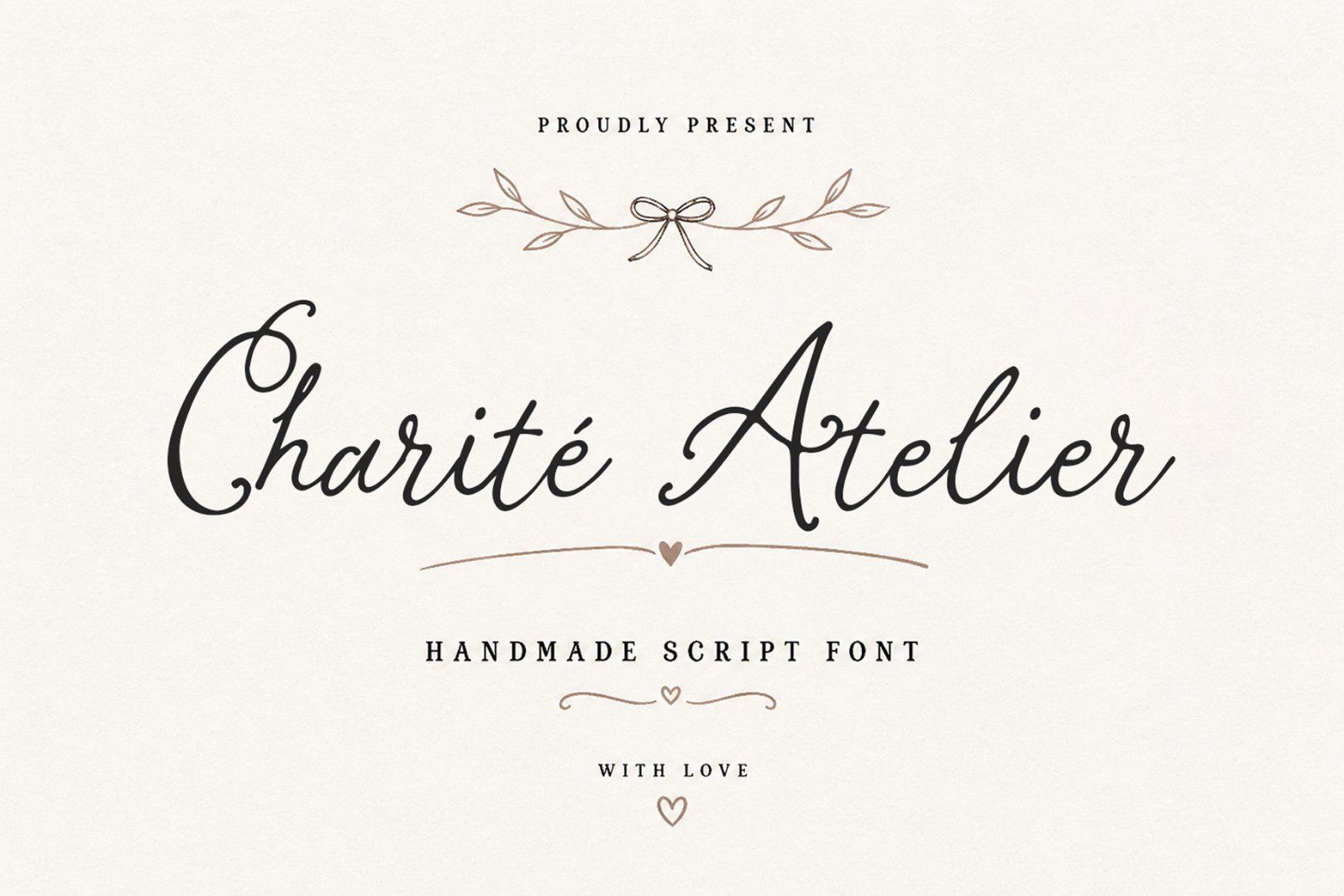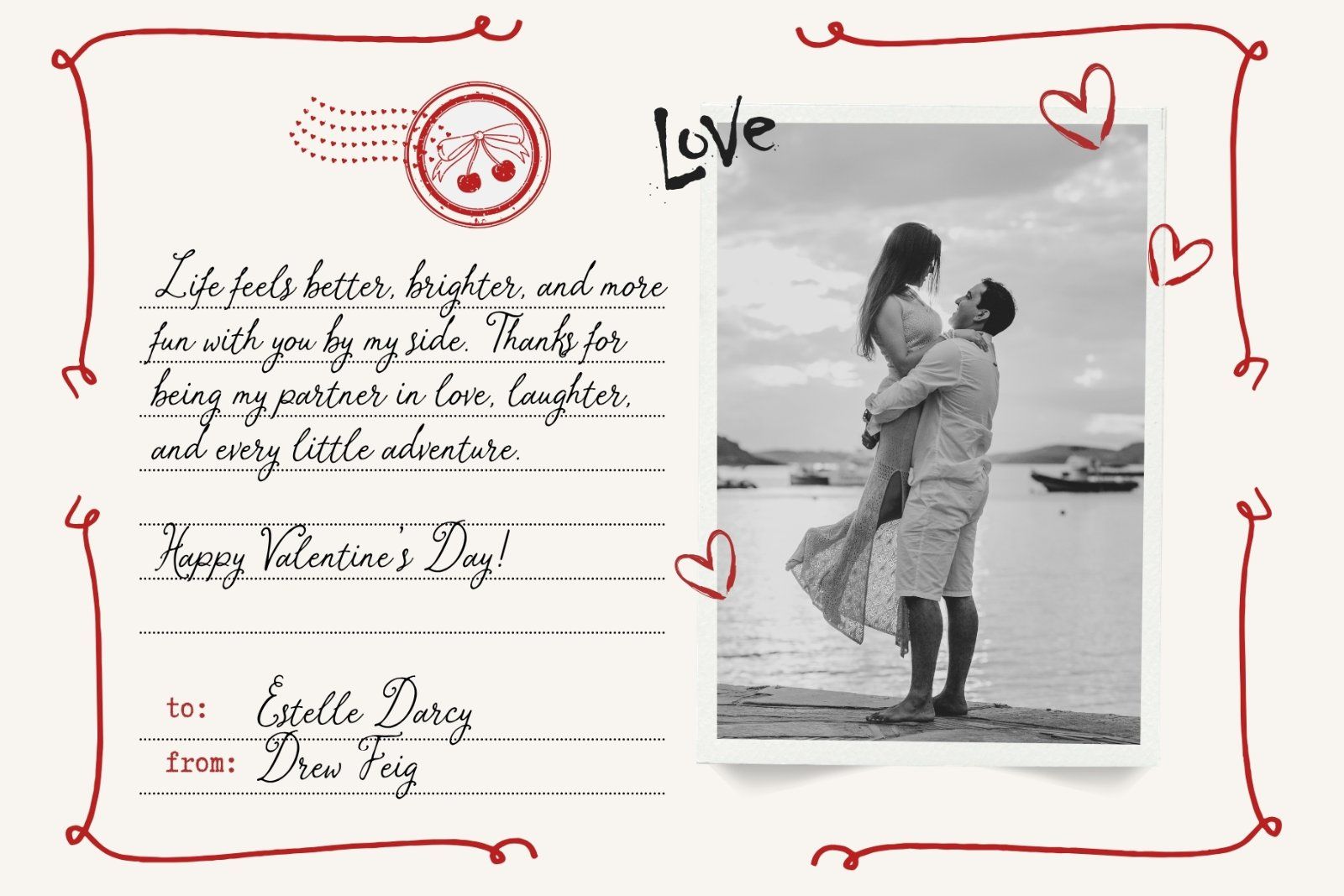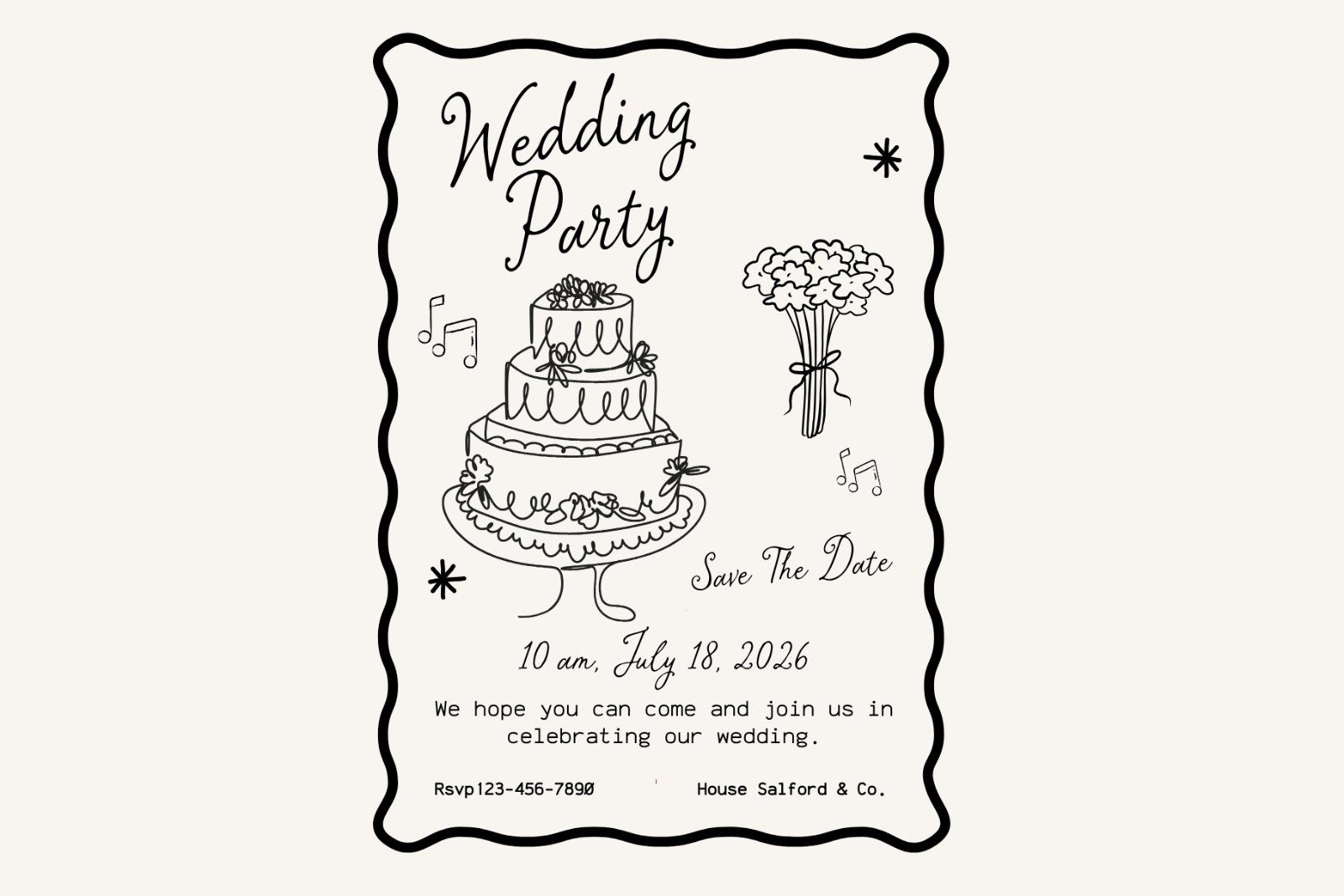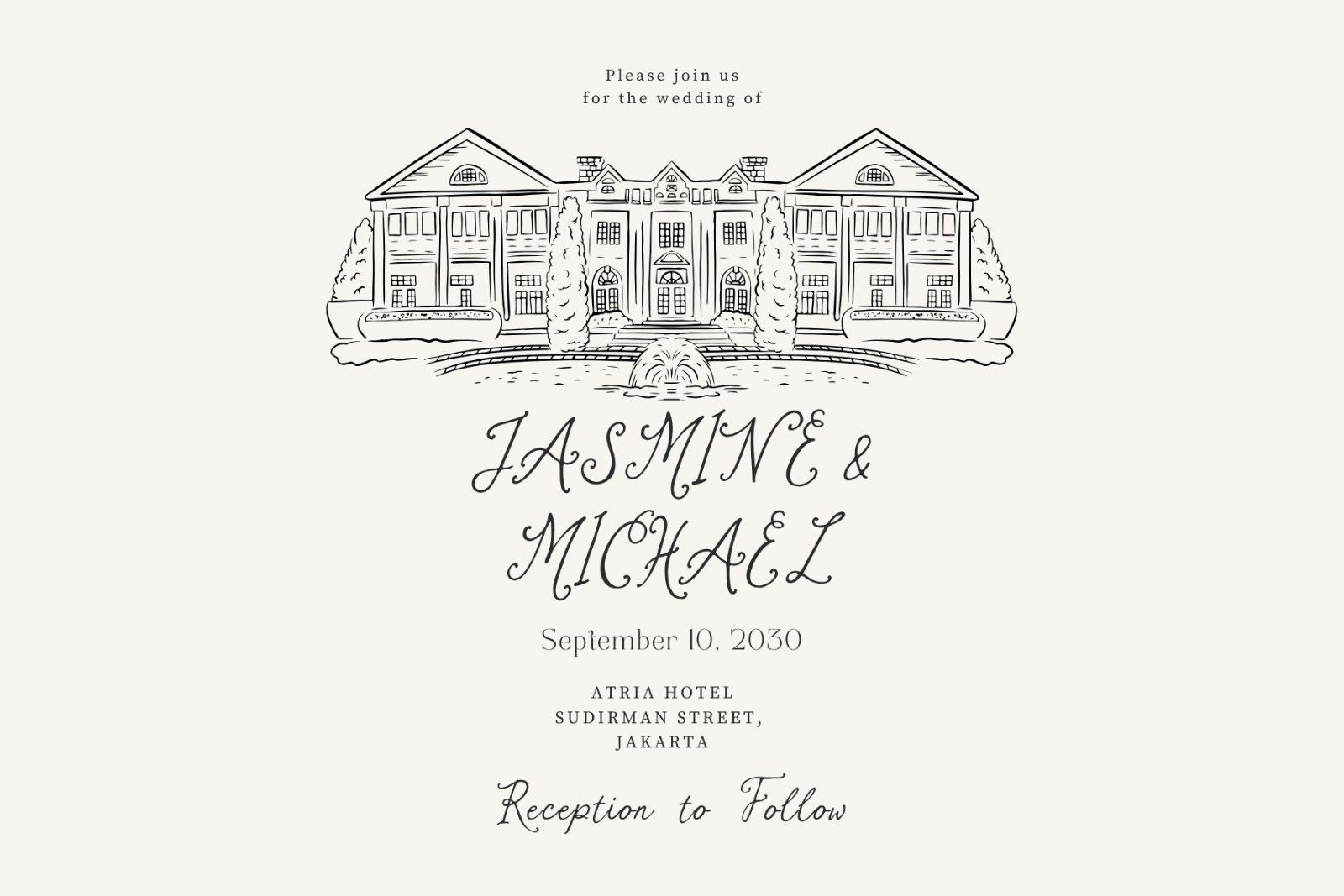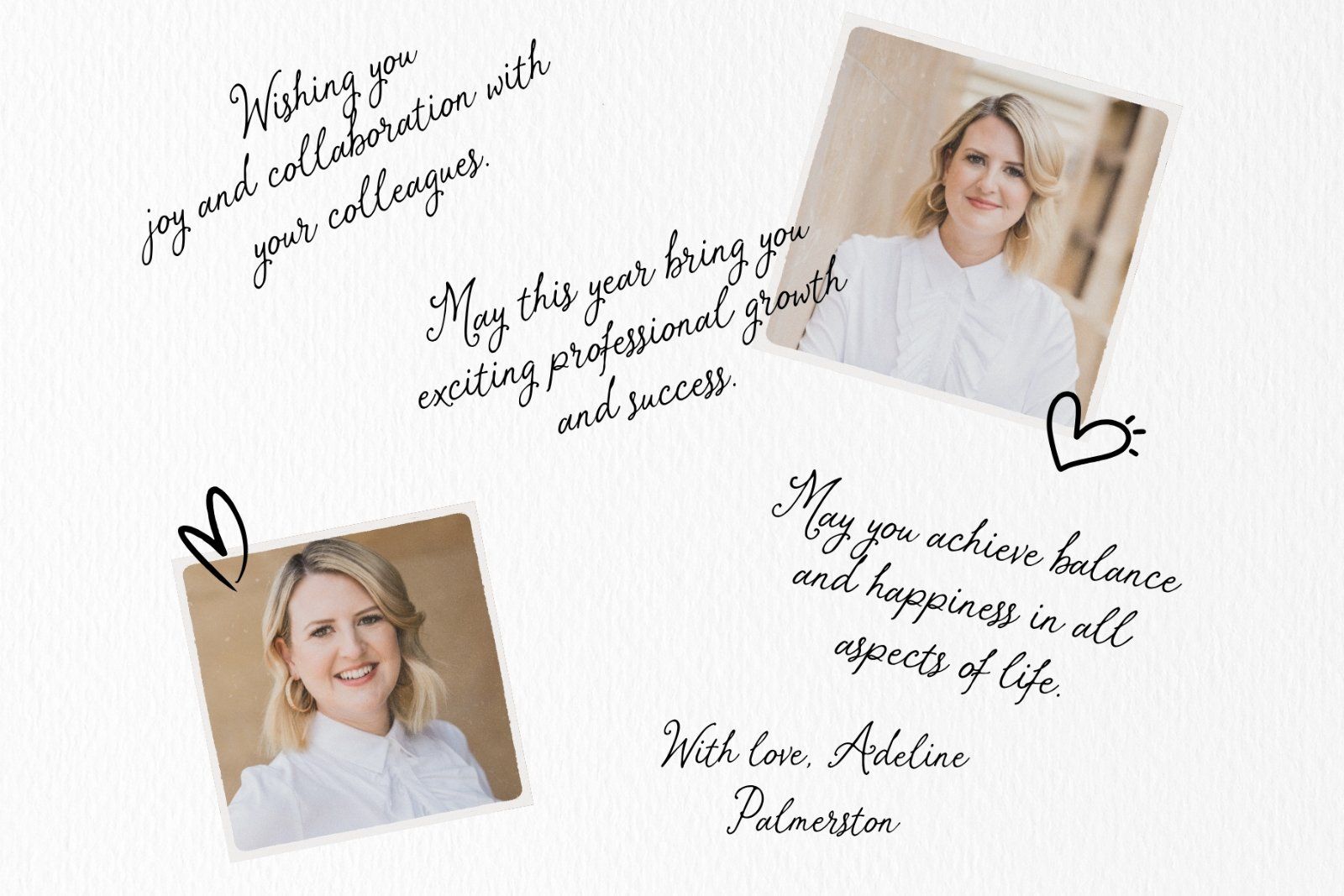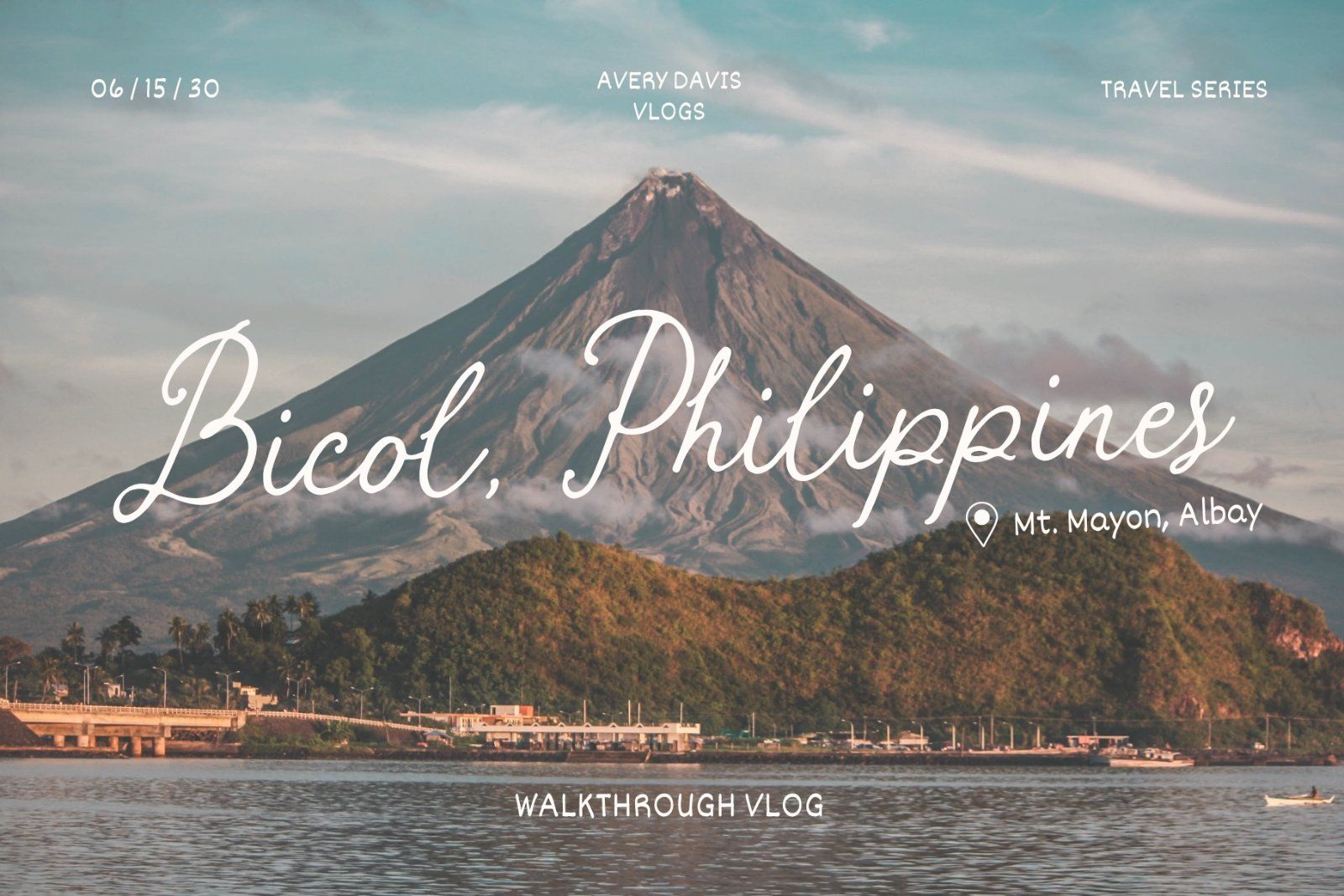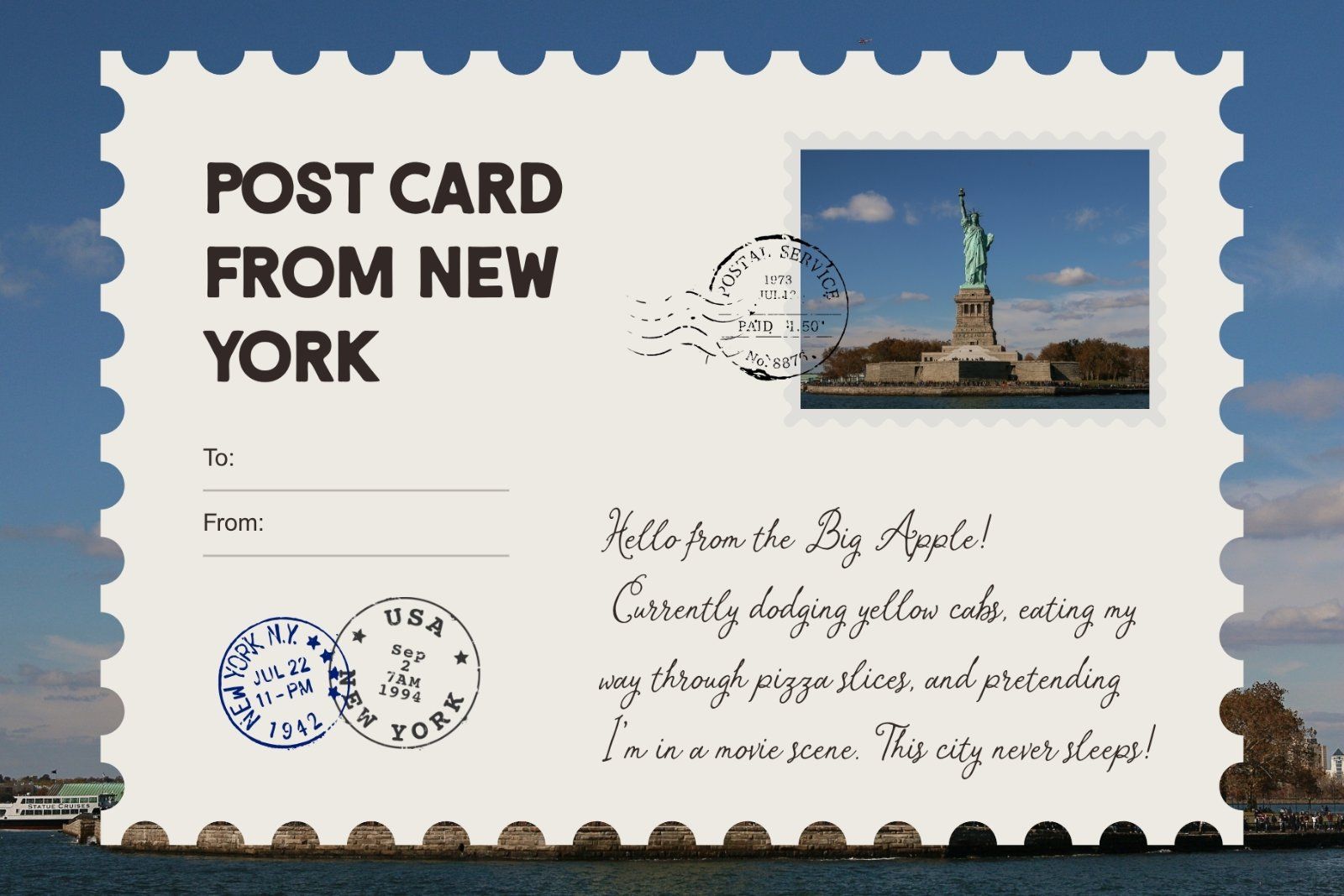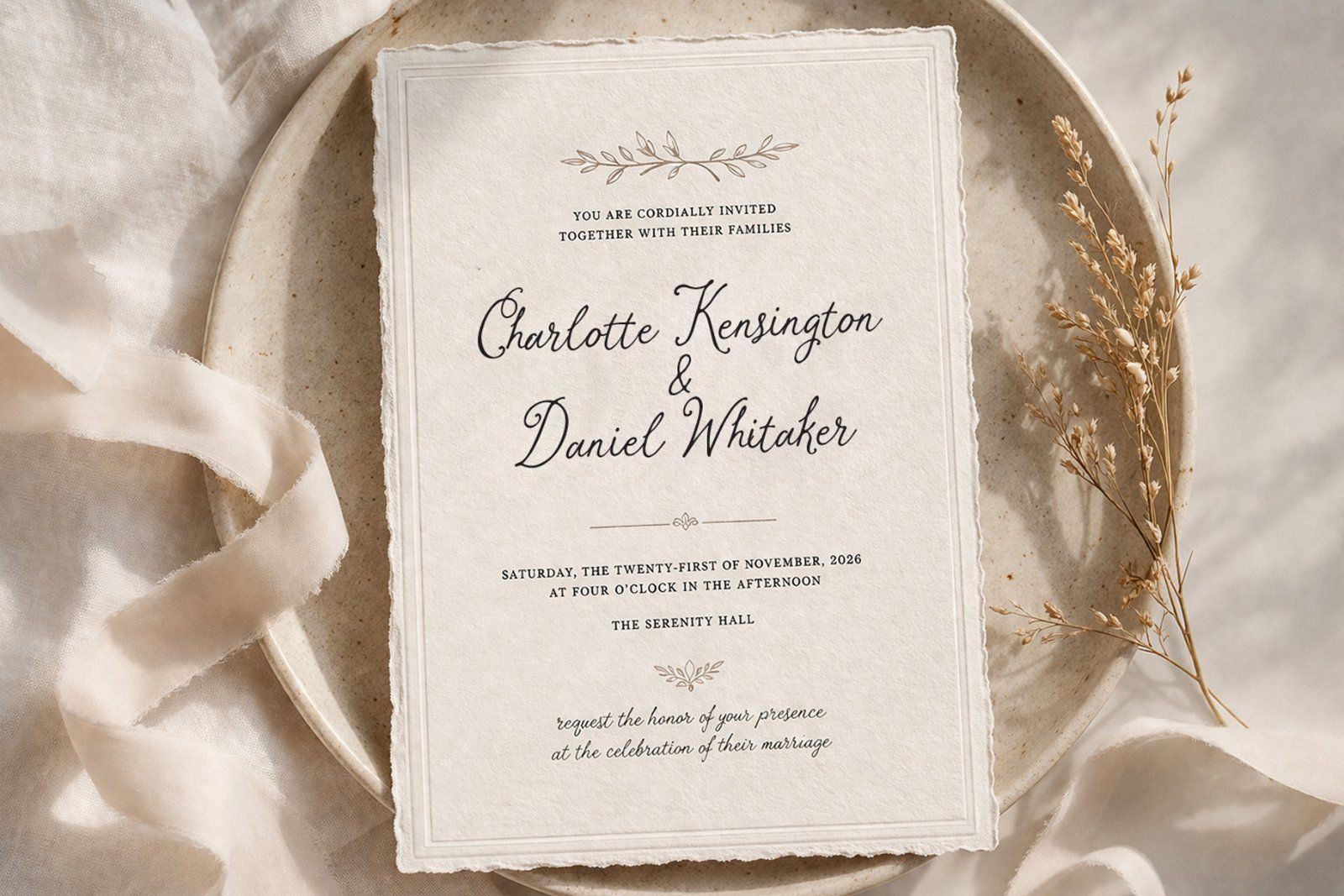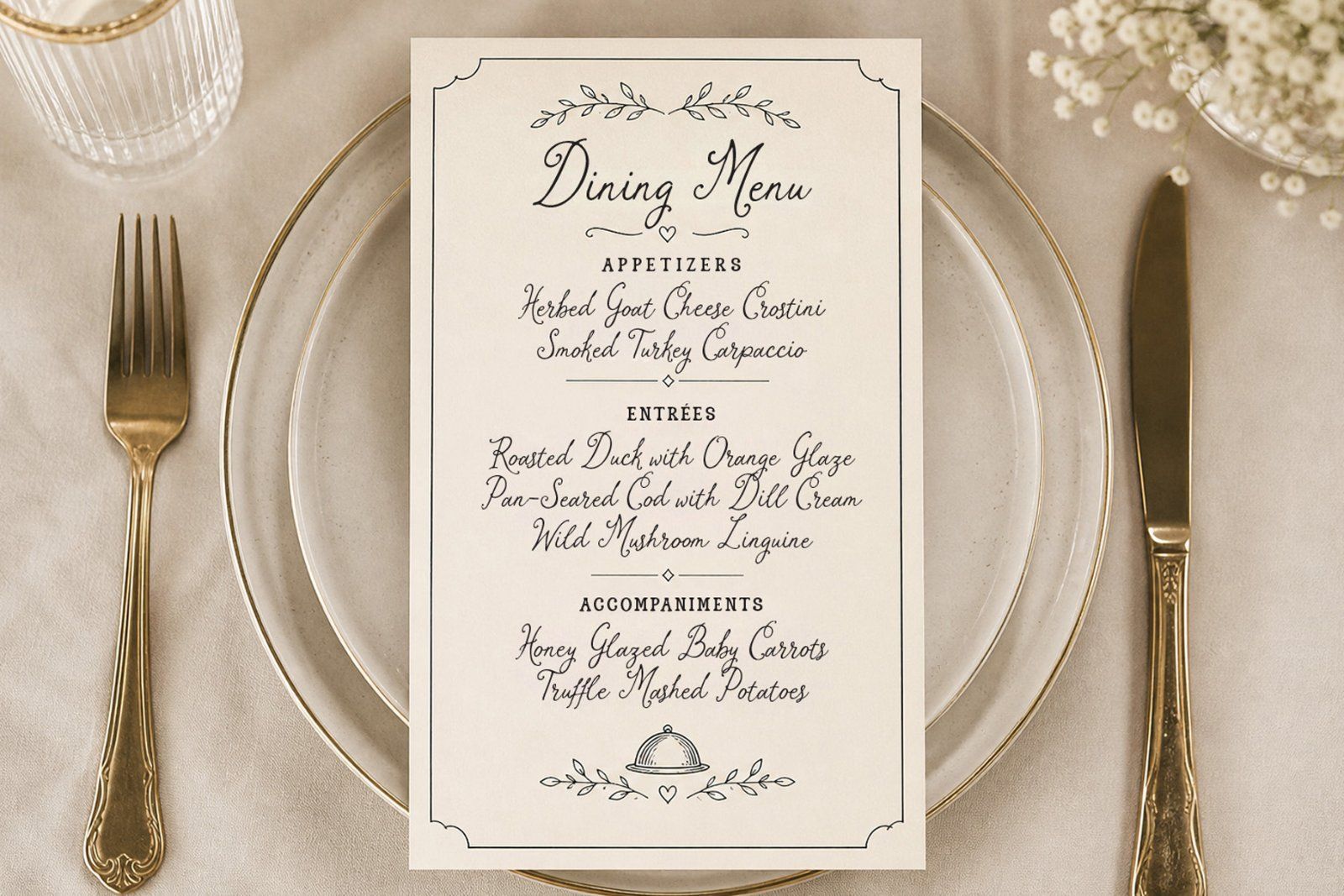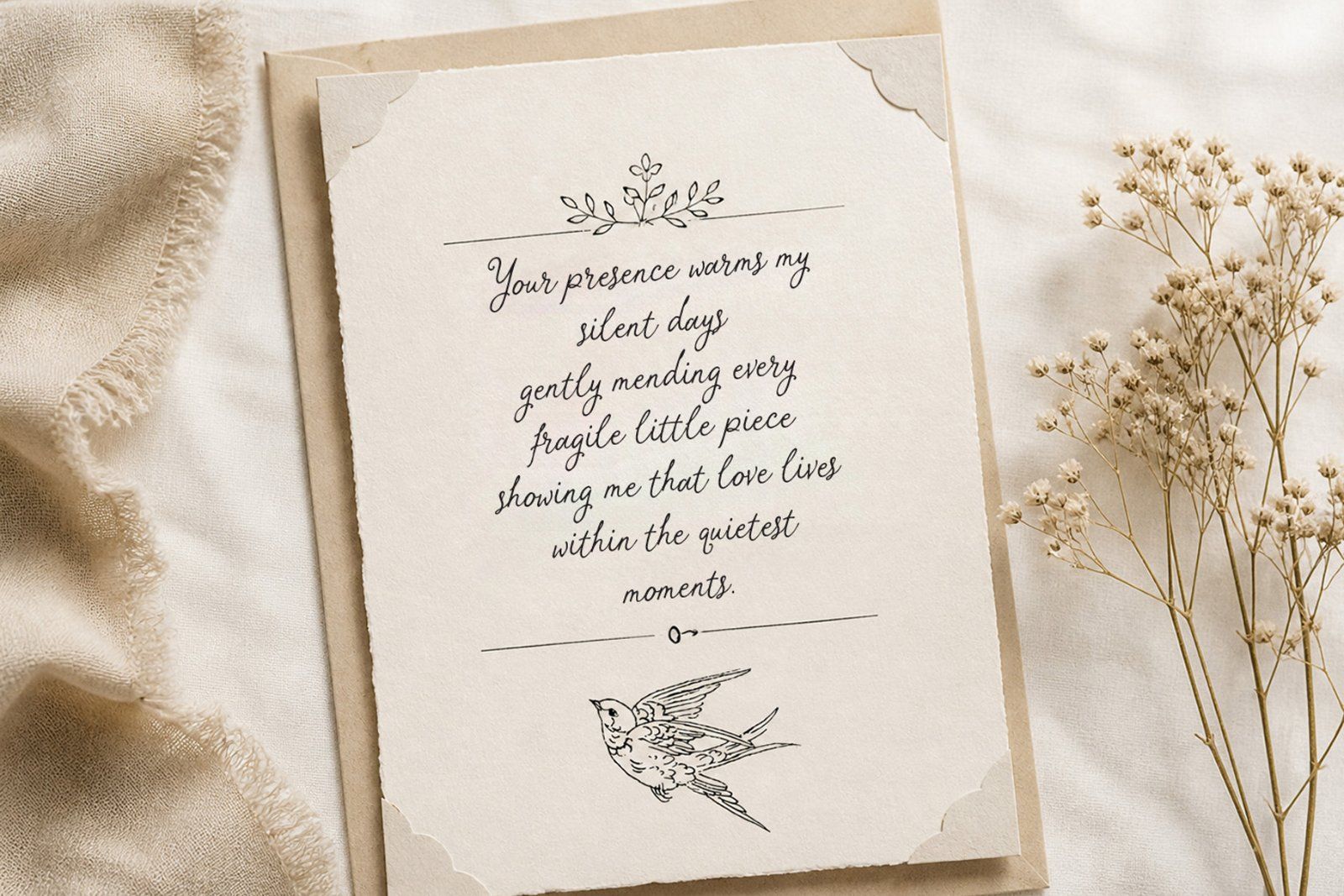
Charité Atelier is a graceful handmade script font that captures the essence of elegance, romance, and timeless beauty. Designed with flowing curves and delicate strokes, this font brings a natural handwritten feel that is both sophisticated and personal. Every letter is carefully crafted to create smooth connections, making it perfect for projects that require a refined and artistic touch.
With its stylish ligatures and balanced letterforms, Charité Atelier delivers a seamless writing experience ideal for branding, wedding invitations, logos, social media graphics, packaging, and editorial designs. The font radiates warmth and charm, making it especially suitable for feminine and luxury-themed projects.
Its versatility allows designers to pair it effortlessly with serif or sans-serif fonts, enhancing visual hierarchy while maintaining a cohesive aesthetic. Whether used for headlines or signature-style text, Charité Atelier adds a distinctive and memorable character to any design.